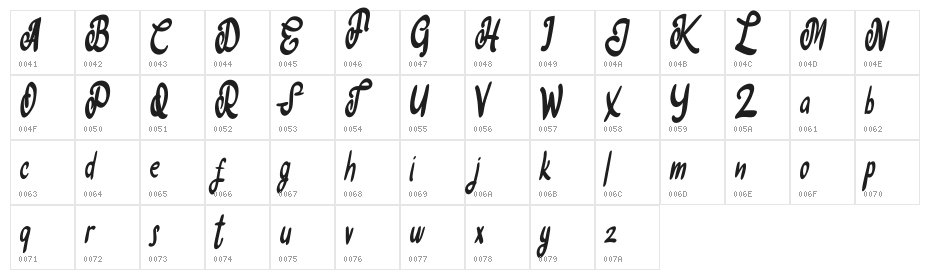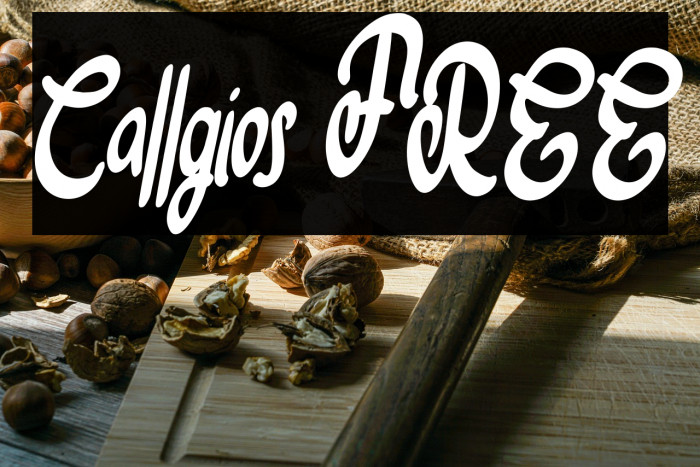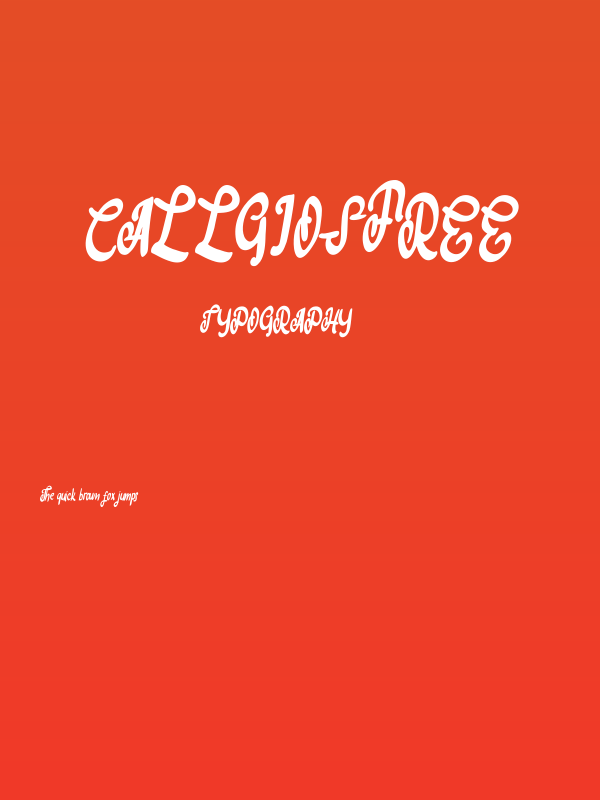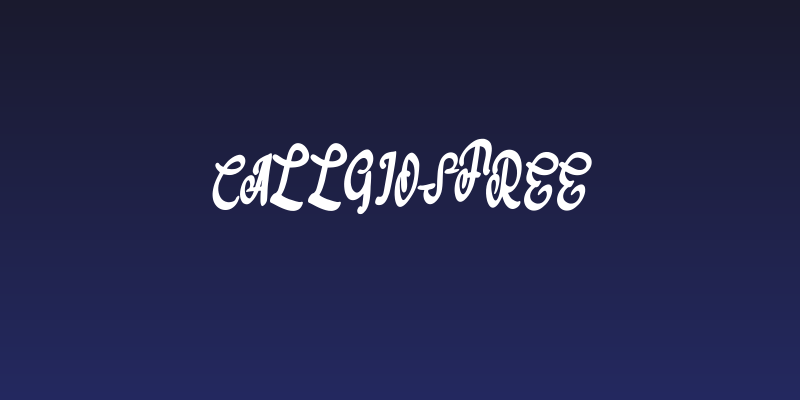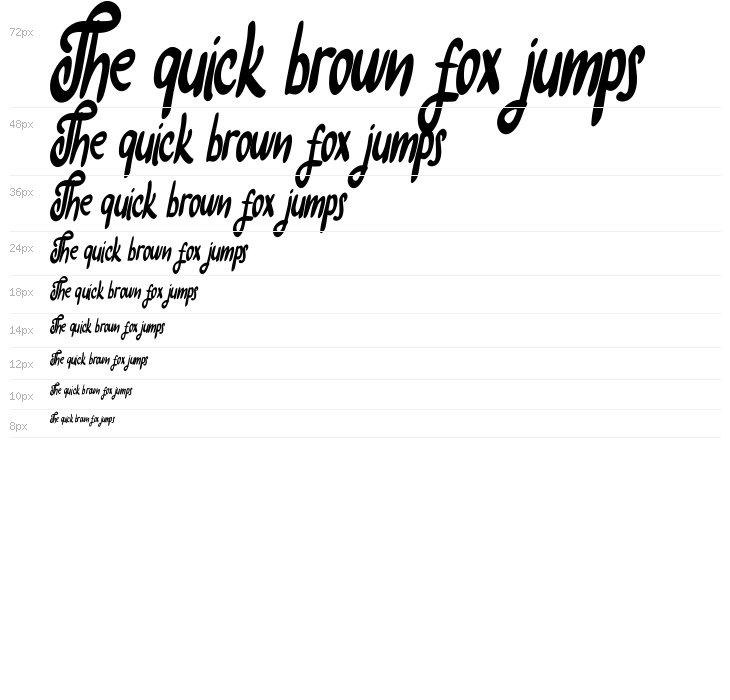
Callgios FREE Font
Callgios FREE Description
This font exudes a bold and dynamic script style, characterized by its flowing, cursive letterforms that convey a sense of elegance and movement. The uppercase letters are particularly striking, with exaggerated loops and swashes that add a decorative flair. The lowercase letters maintain a consistent style, complementing the uppercase with their smooth, connected strokes. The numbers and special characters are designed to match the overall aesthetic, ensuring a cohesive look across all text. This font is ideal for projects that require a touch of sophistication and personality.
| Proposed Projects | Perfect for wedding invitations, branding, logo design, and elegant packaging. |